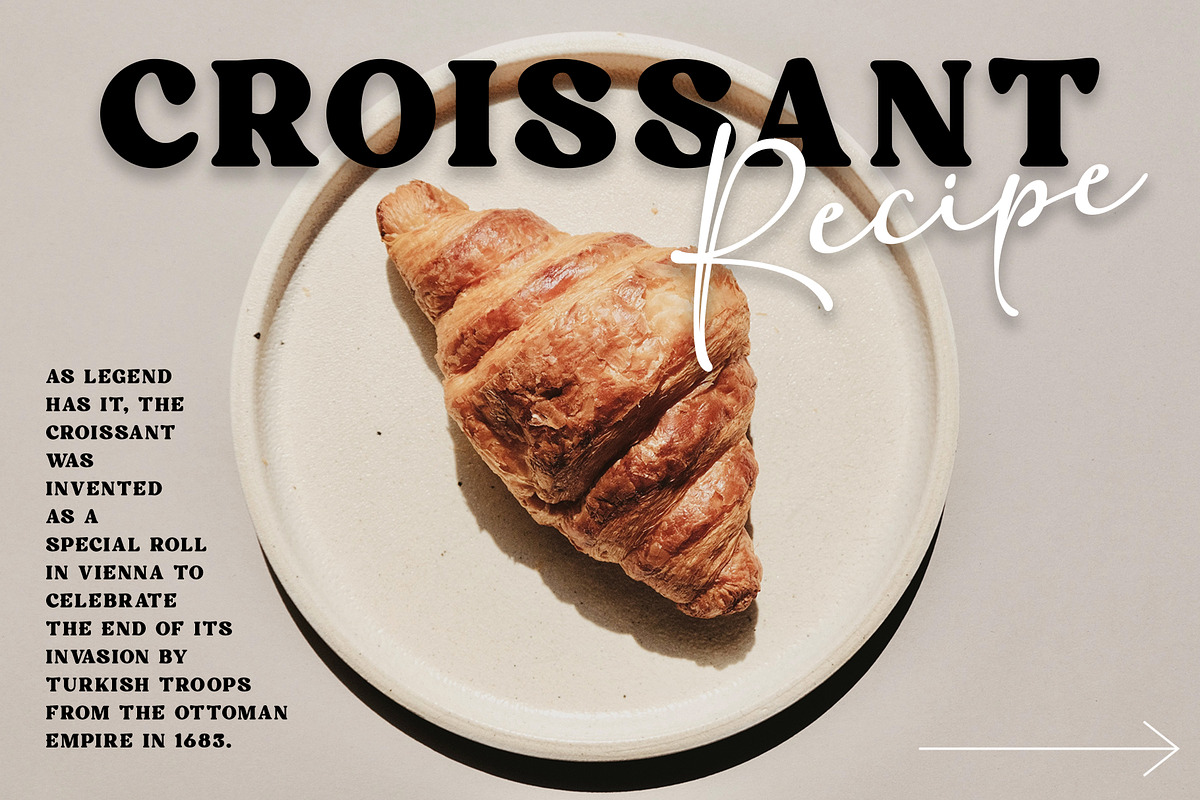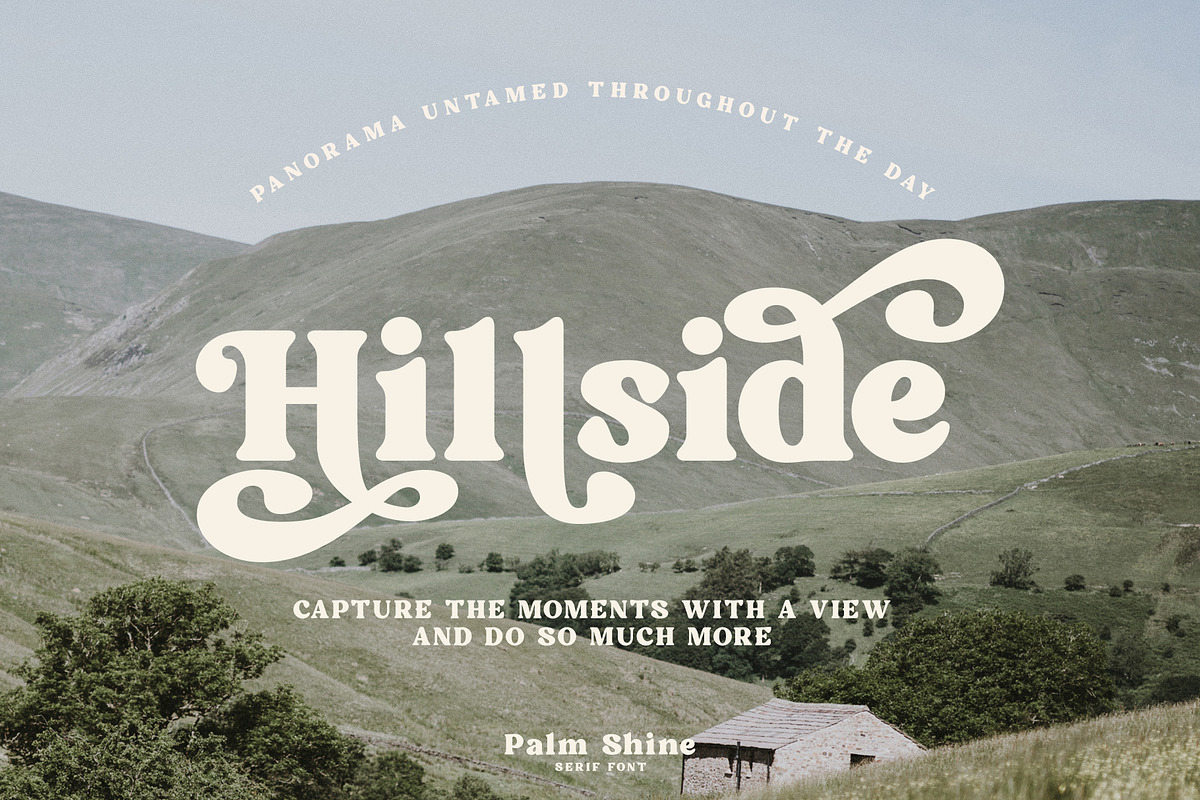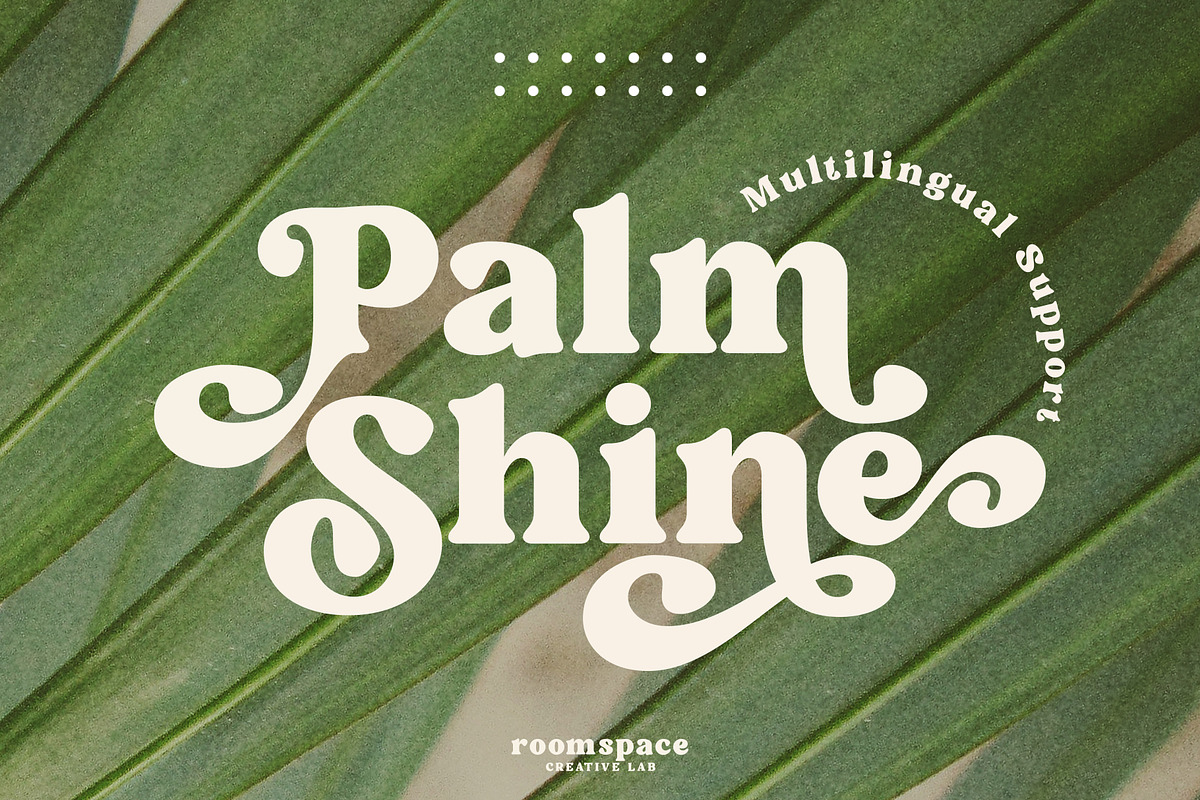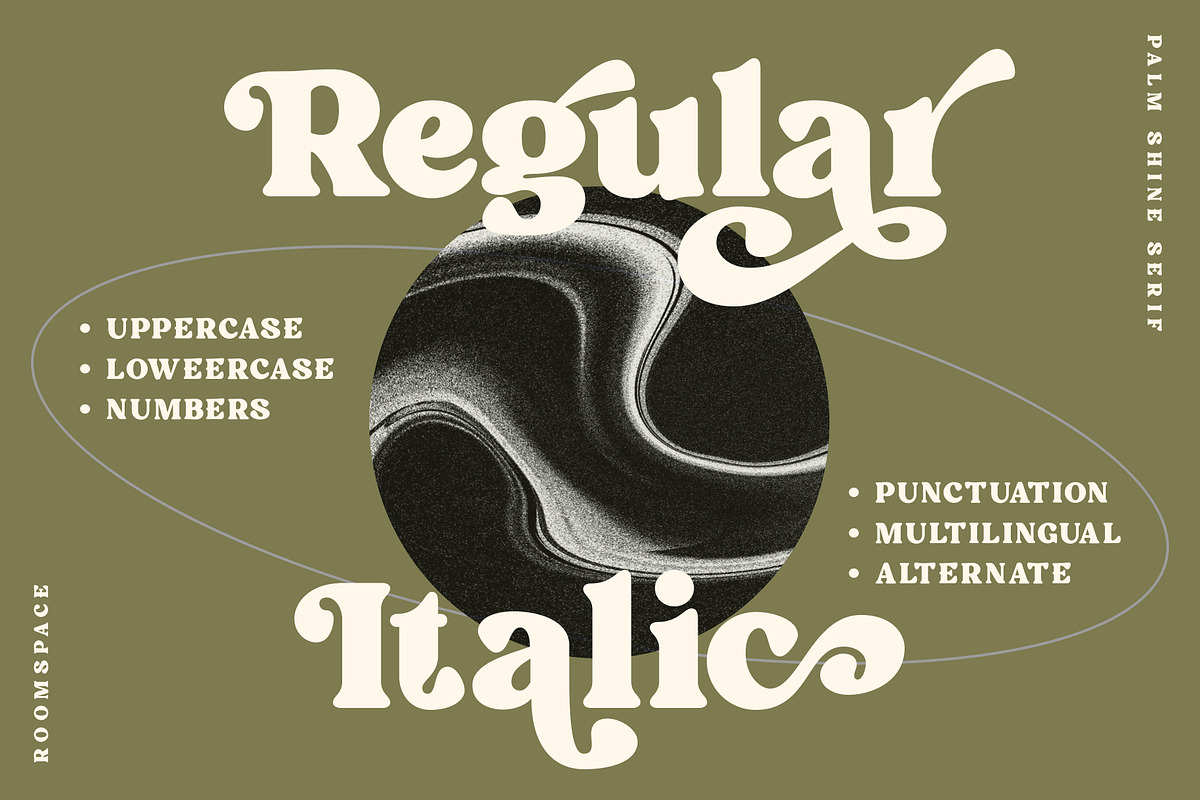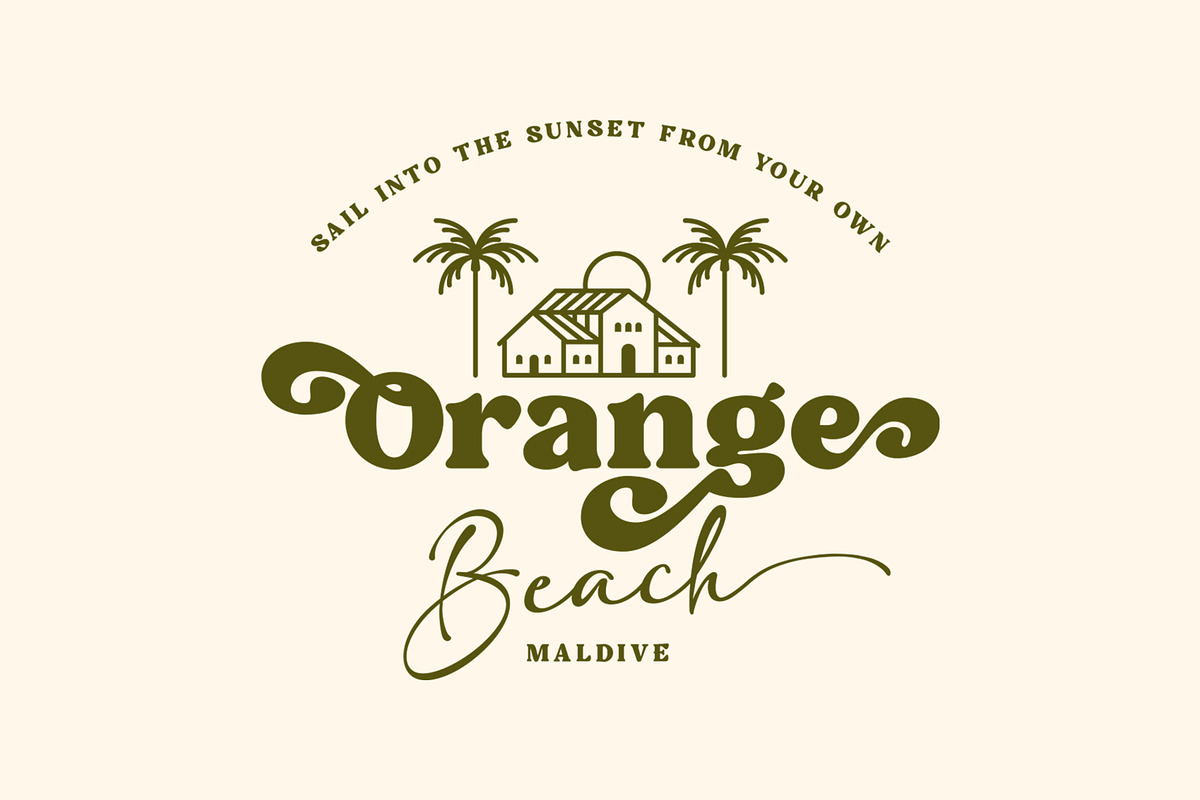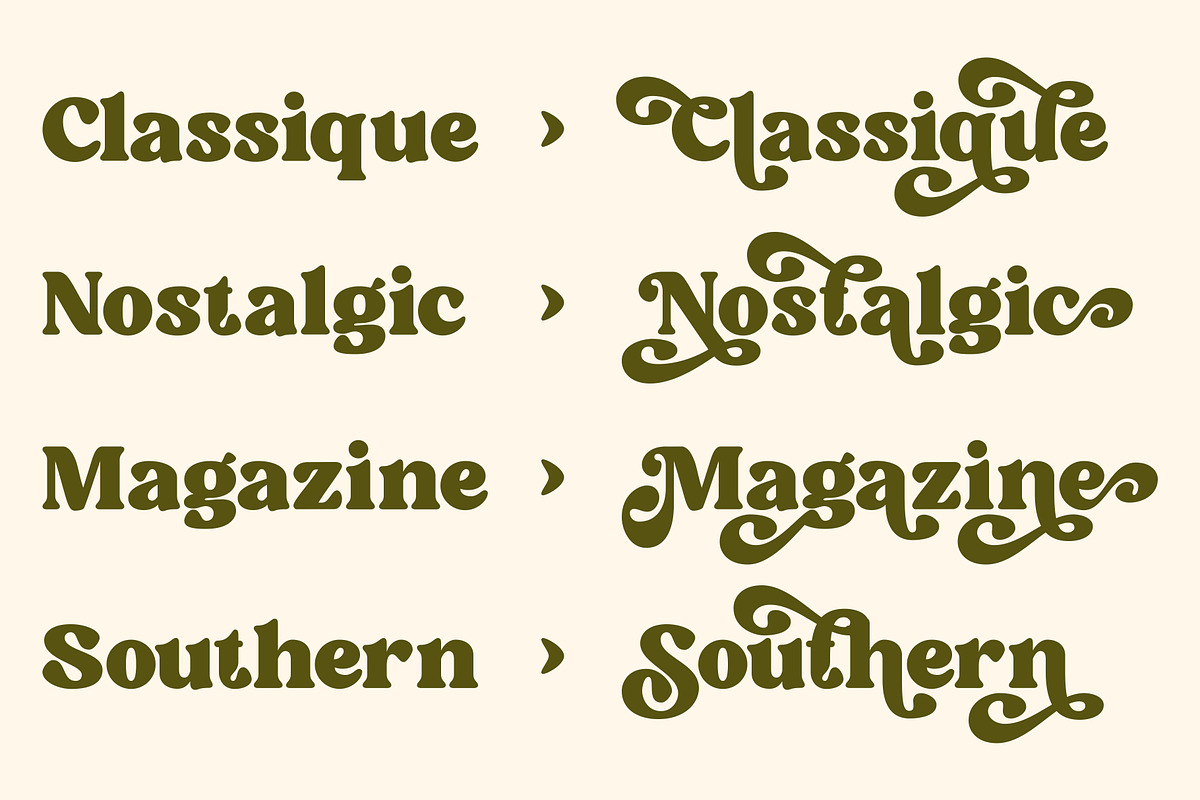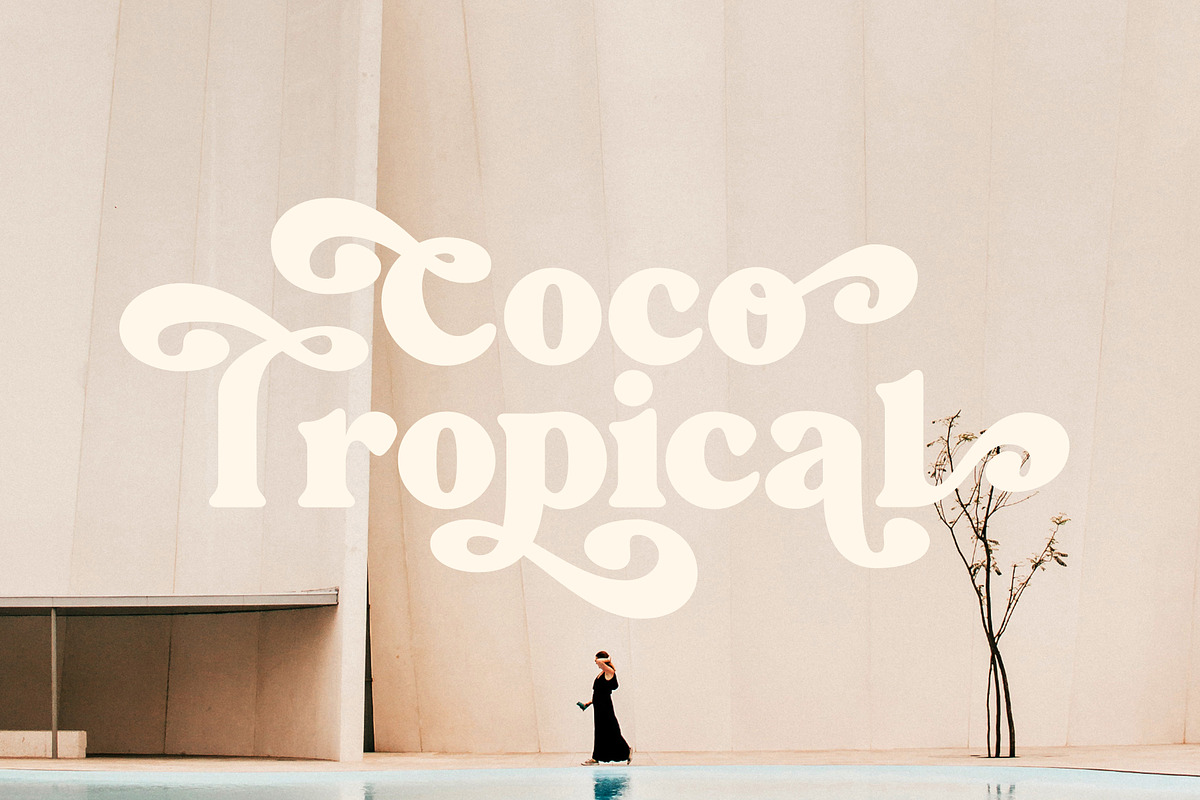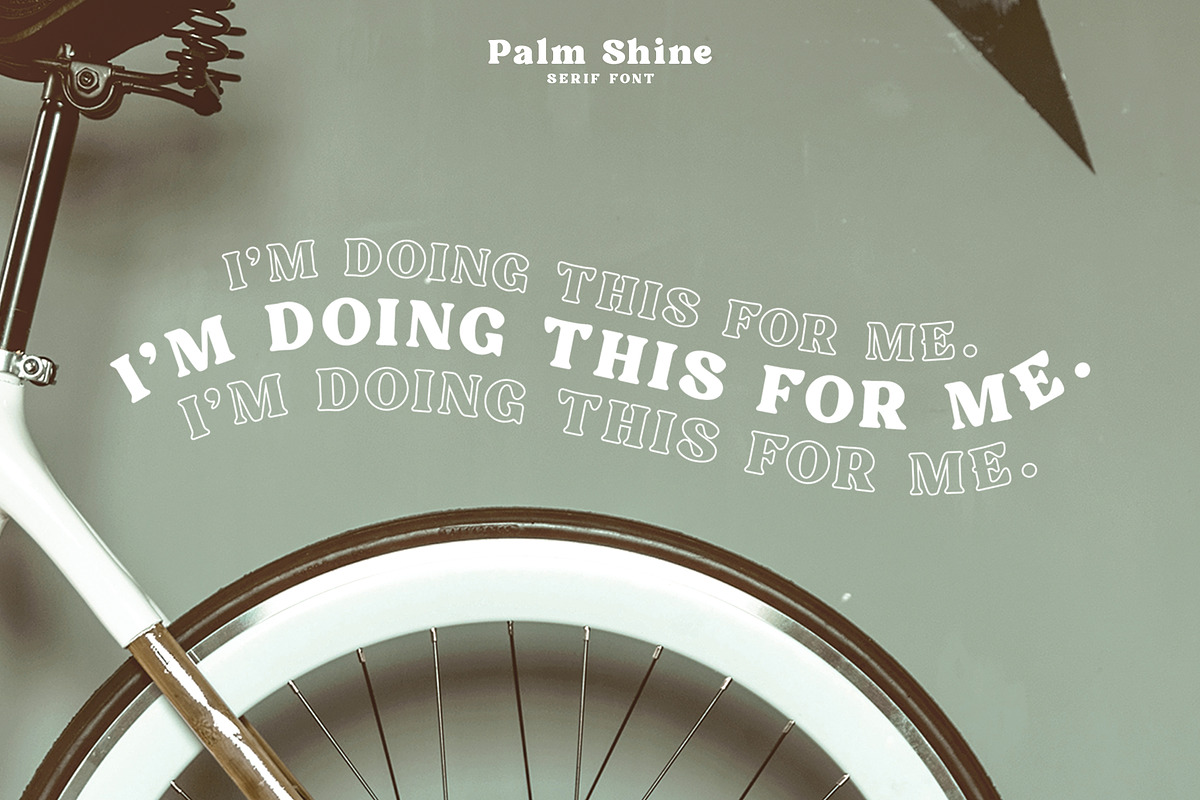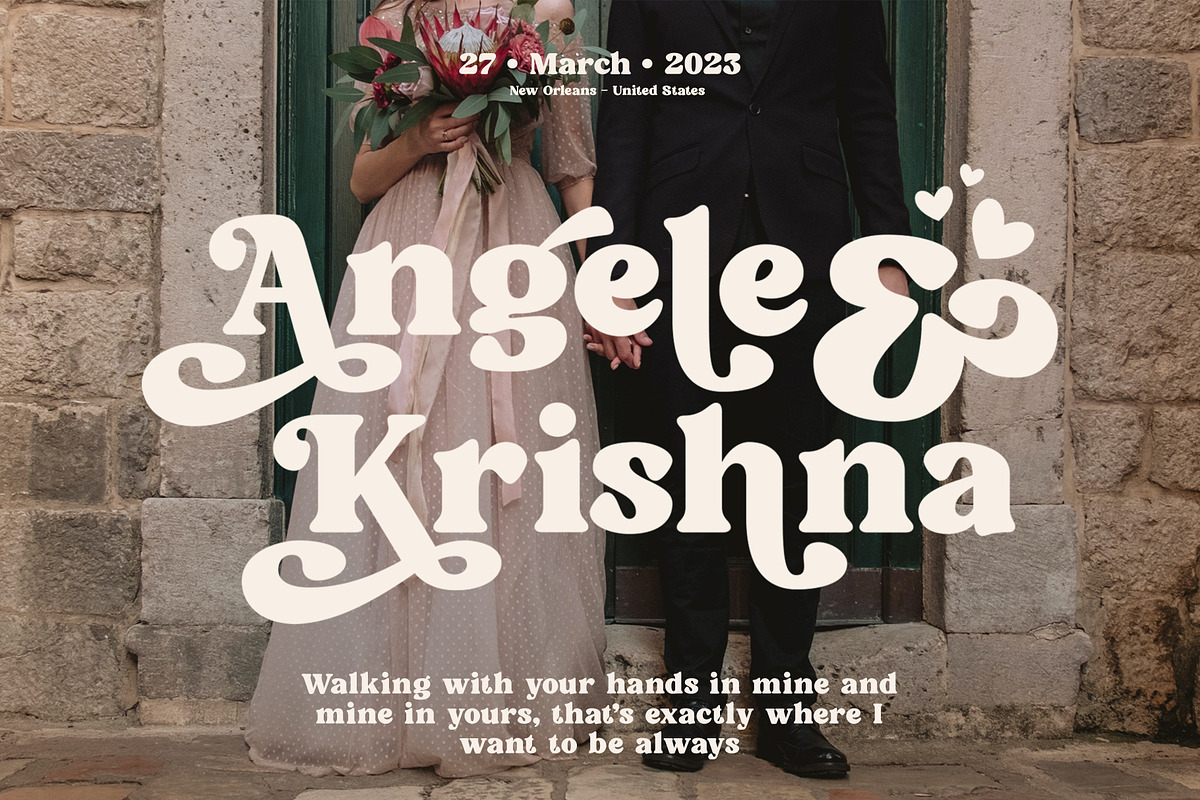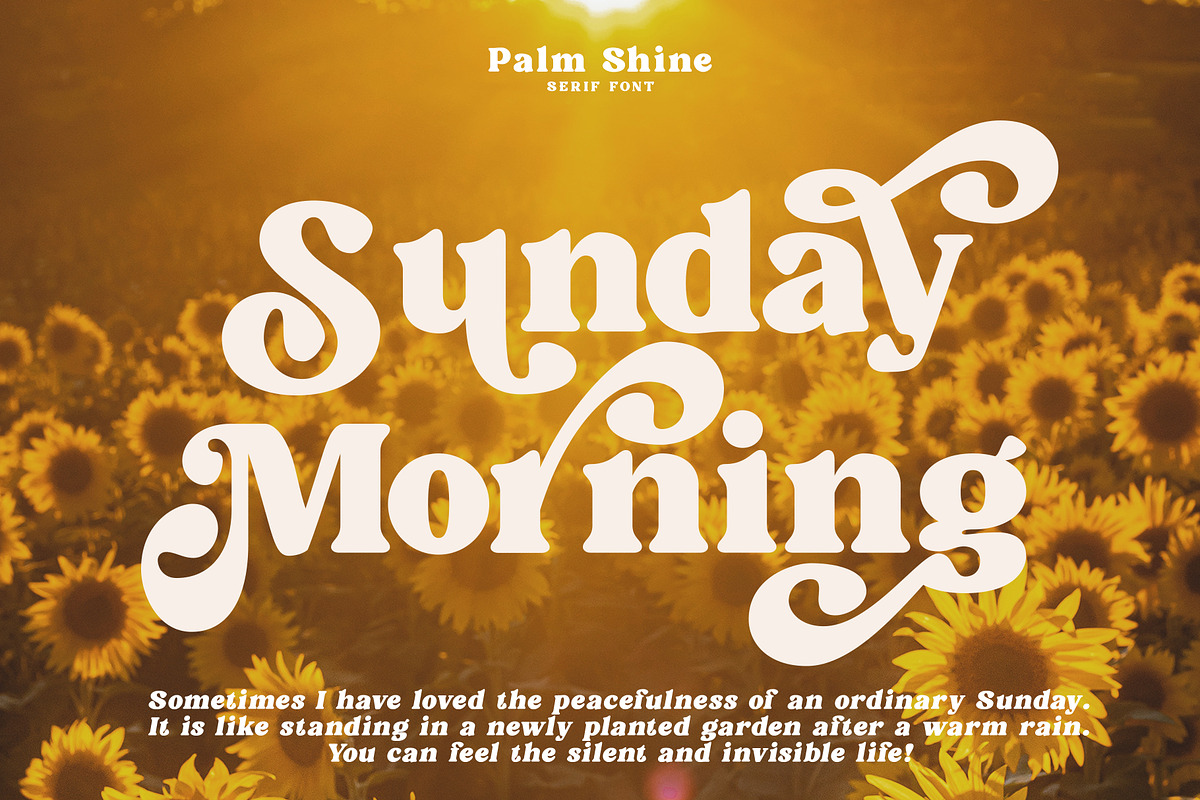
Palm Shine - Bold Swirl Serif
Palm Shine is a beautiful and versatile font with a retro serif design that can be used in many different ways. Its elegant lines and modern look will make your designs stand out while maintaining a classic, timeless feel. It's also extremely versatile - perfect for logos, boho and groovy designs, and even silhouette art and more.